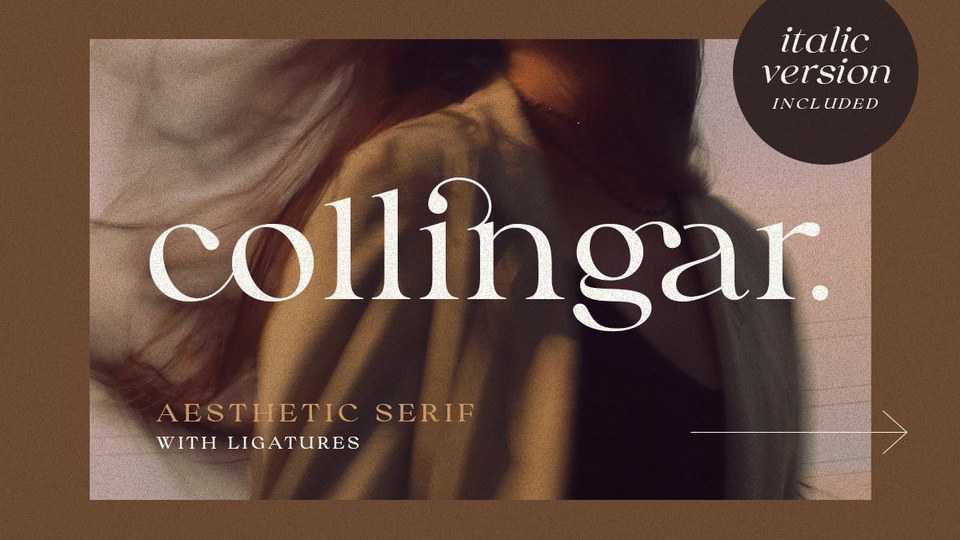
Download Collingar font, a classic and elegant serif typeface. Collingar was particularly crafted for those who need a beautiful and refreshing look to their designs.